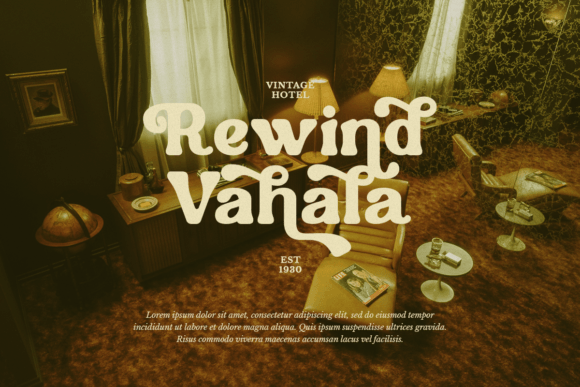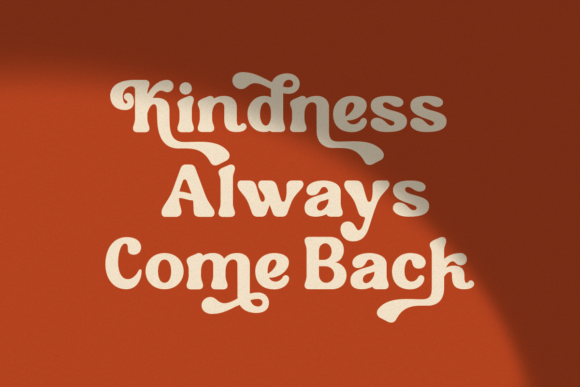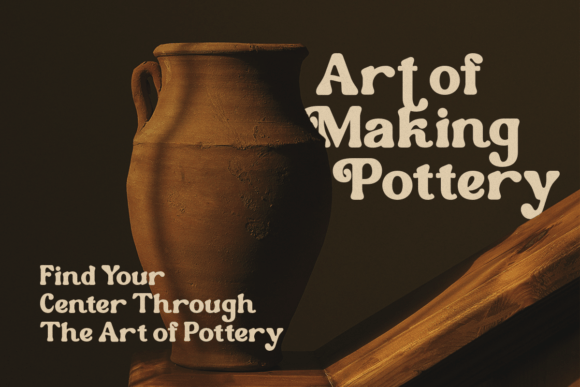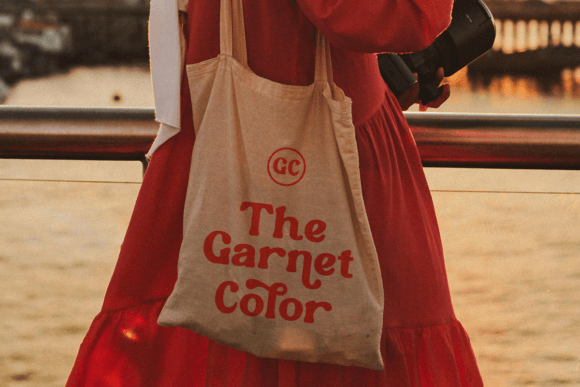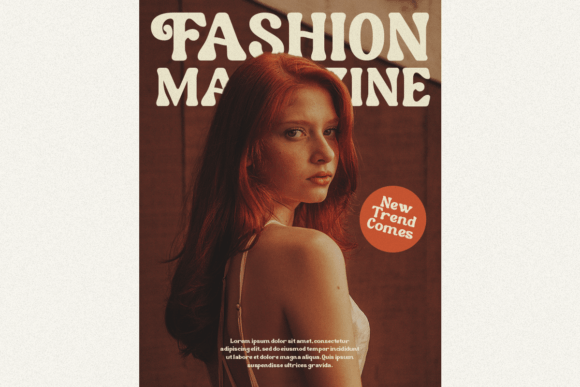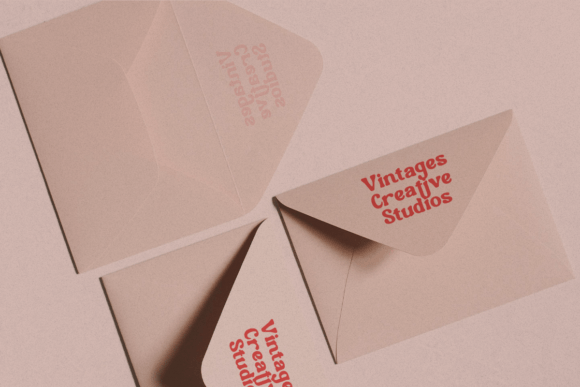
The Retro Charm of Entrance Font: A Designer’s Delight
I’ll never forget the time I was working on a project for a client who wanted a retro-themed poster. I had all the design elements ready, but I was struggling to find the perfect font. That’s when I stumbled upon Entrance Font, a retro rounded font that instantly captured the essence of vintage typography with a modern twist. Its rounded edges and playful curves evoked a sense of nostalgia while maintaining a contemporary appeal. I knew right then and there that I had found the perfect fit for my project.
A Personal Review of Entrance Font
As a designer, I’m always on the lookout for fonts that can add a unique touch to my projects. Here’s my honest review of Entrance Font:
- ✨ The retro vibe is on point! Entrance Font has a distinctive vintage feel that’s perfect for designs that require a nostalgic touch.
- ✅ The rounded edges and playful curves make it a joy to use for headlines, titles, and even body text.
- 💕 The font comes with a range of OpenType features, including glyphs and stylistic alternates, which give you plenty of creative options.
- 👍 The font is highly legible, even at smaller sizes, making it perfect for use in a variety of design applications.
- 🤔 Some of the glyphs and special characters can be a bit tricky to access, especially if you’re new to using OpenType features.
- ⚠️ The font may not be the best choice for very long blocks of text, as it can start to feel a bit too playful and lose its impact.
The Backstory of Entrance Font
Entrance Font was designed by a team of typographers who wanted to create a font that captured the essence of vintage typography with a modern twist. The font was inspired by classic retro fonts from the 1950s and 1960s, but with a fresh, contemporary feel that’s perfect for modern designs. The designers behind Entrance Font aimed to create a font that would evoke a sense of nostalgia while maintaining a modern appeal.
| Font Name | Entrance Font |
| Author | Windfall Co |
Q: What is Entrance Font?
A: Entrance Font is a retro rounded font that captures the essence of vintage typography with a modern twist.
Q: What are the OpenType features of Entrance Font?
A: Entrance Font comes with a range of OpenType features, including glyphs and stylistic alternates, which give you plenty of creative options.
Q: Is Entrance Font suitable for body text?
A: While Entrance Font is highly legible, it may not be the best choice for very long blocks of text, as it can start to feel a bit too playful and lose its impact.